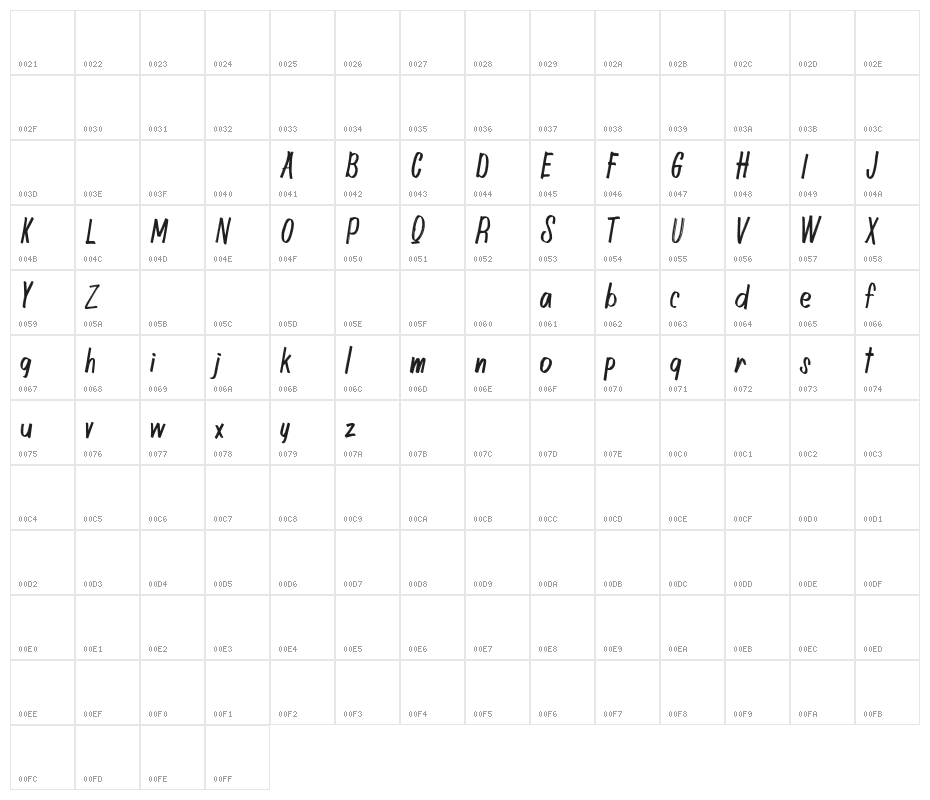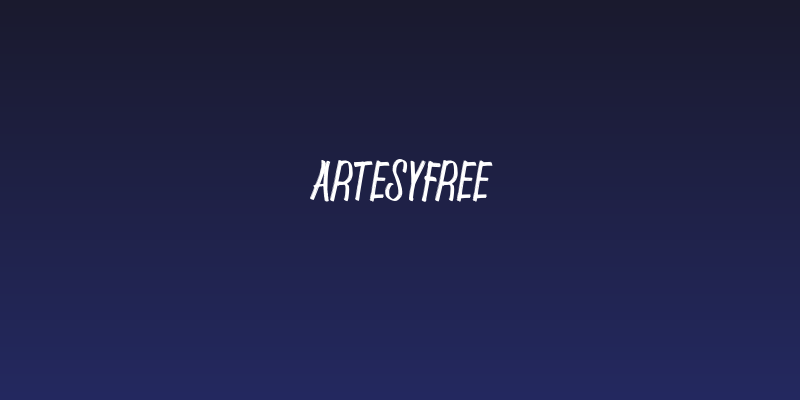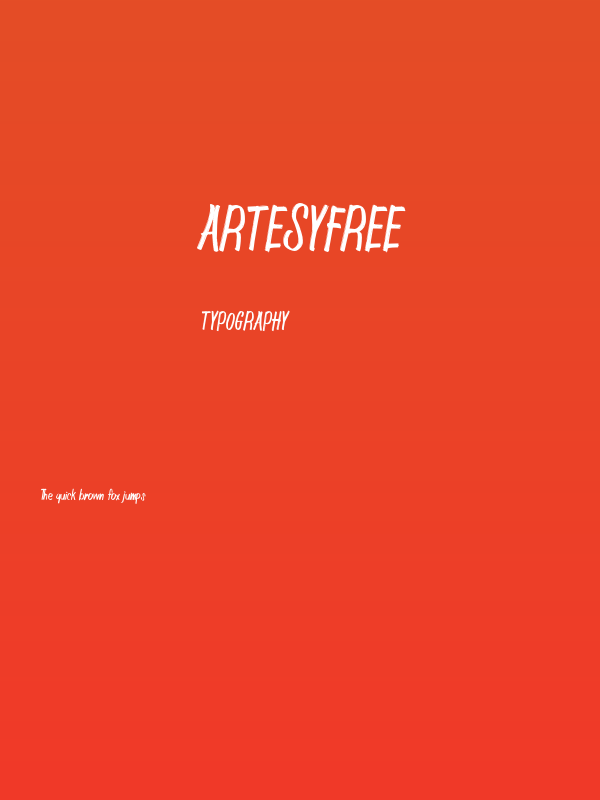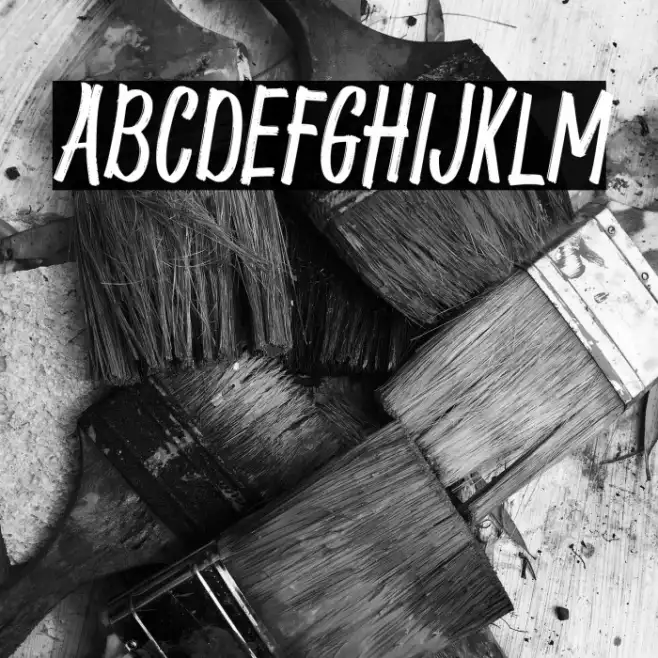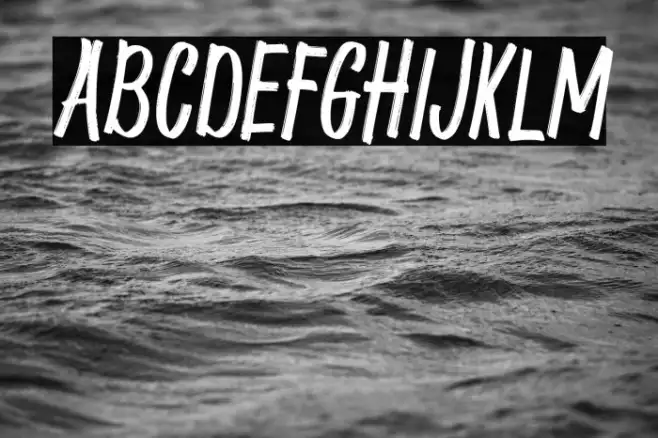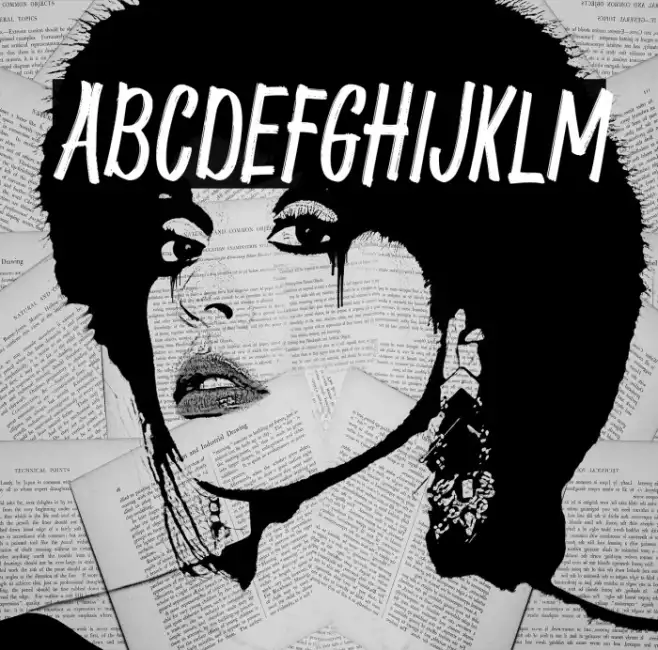
ArtesyFREE Font
ArtesyFREE Description
This font features a dynamic and energetic style, characterized by its brush-like strokes that give it a hand-drawn appearance. The uppercase letters are bold and slightly slanted, adding a sense of movement and flair. The lowercase letters maintain the same lively quality, with some characters exhibiting unique loops and curves that enhance its artistic feel. The font's overall design is playful yet sophisticated, making it suitable for creative projects that require a personal touch. Its distinct style is perfect for capturing attention and conveying a sense of creativity and spontaneity.
| Proposed Projects | Ideal for posters, branding, social media graphics, and creative invitations. |